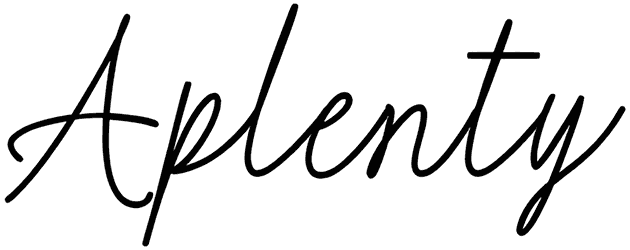
Aplenty Font
With this elegant autograph font, you can create an invitation for your art gallery or a business card for a tattoo artist and make them impressive. The Aplenty font has a natural and smooth face that’s gonna give a char…
With this elegant autograph font, you can create an invitation for your art gallery or a business card for a tattoo artist and make them impressive. The Aplenty font has a natural and smooth face that’s gonna give a charming mood to your text. Put this unique handwritten font on your next project and take it to a higher level.